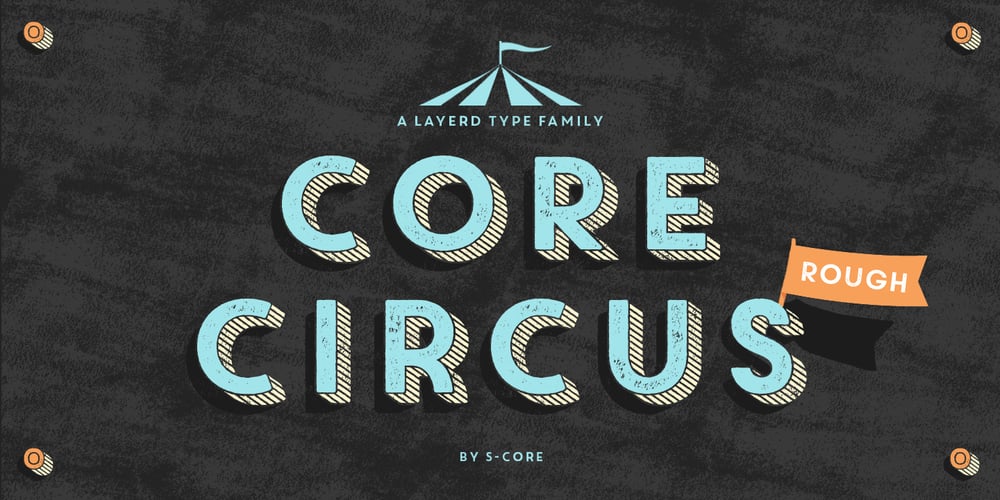
Core Circus Rough Font Family was designed by Hyun-Seung Lee, Dae-Hoon Hahm, Dong-Kwan Kim and published by S-Core. Core Circus Rough contains 17 styles and family package options. Core Circus Rough is a textured version of Core Circus which is a layered type family consisting of seven 3D effect layers, eight 2D effect layers and one shadow effect layer. Uppercase and lowercase letters are separated by such features that counters are opened or closed. Core Circus provides other closed counter styles such as numbers with opentype feature (Stylistic Alternatives). Also available Core Magic Rough (Slab-Serif version of Core Circus Rough) The shape of Core Circus is simple but the combinations of effect fonts are impressive. Core Circus makes your works charming and special with endless combinations (at least 262,551 kinds). This family is really nice for book titles, headlines, logotypes and any artworks.